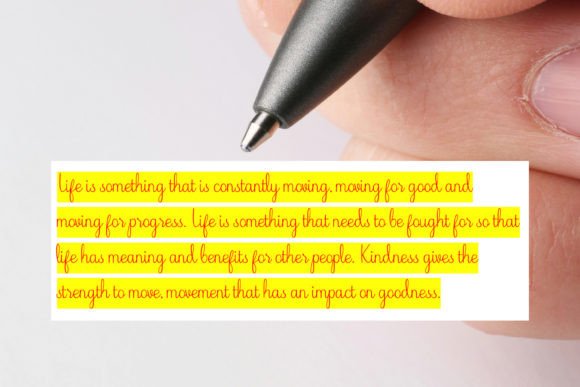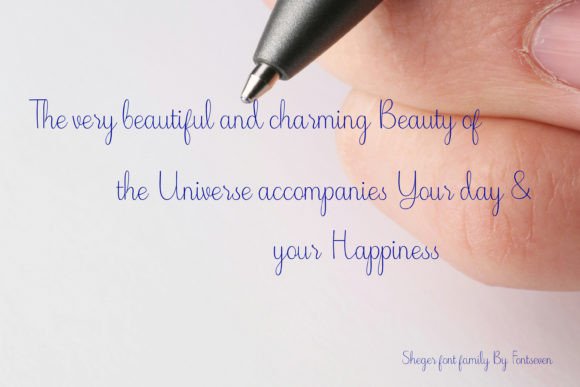
Sheger Two Font – Free Download
Introduction to Sheger Two Font
Sheger Two is a series of nine versions of the Sheger Font.
Created based on handwriting which is then translated into digital form to create a natural font This handwriting-based letter is equipped with thick and thin strokes.
Key Features of Sheger Two Font